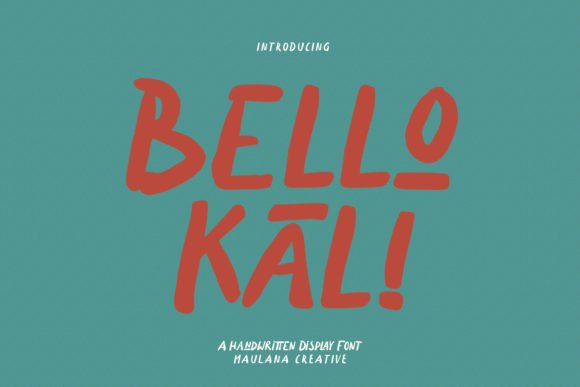
Dive into the world of Bellokali, a charming and playful handwritten display font. Its whimsical strokes and energetic character make it a perfect choice for adding a touch of personality to your creative projects.
Envision your words transformed into a delightful dance of characters, capturing the essence of handwritten notes and bringing a personal touch to your designs.
Step into the realm of creativity with Bellokali, where your ideas take center stage. From captivating t-shirt designs and eye-catching posters to endearing stickers and elegant digital designs, this font is your versatile companion.
Whether you're crafting a heartfelt wedding proposal, sending warm wishes on a greeting card, or creating enchanting branding elements, Bellokali adds a touch of warmth and authenticity to your designs.
Let your imagination soar as you explore the possibilities of Bellokali. Its vibrant style is bound to elevate your projects and leave a lasting impression on your audience.
Embrace the beauty of handwritten charm with Bellokali. Its playful nature and versatility make it a must-have addition to your design arsenal.